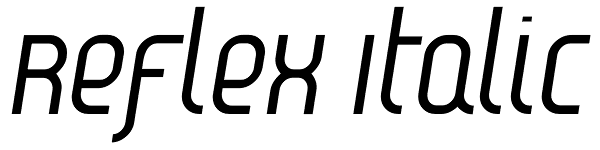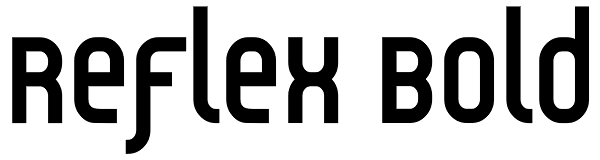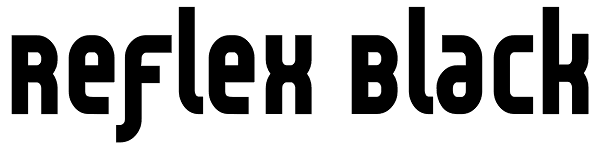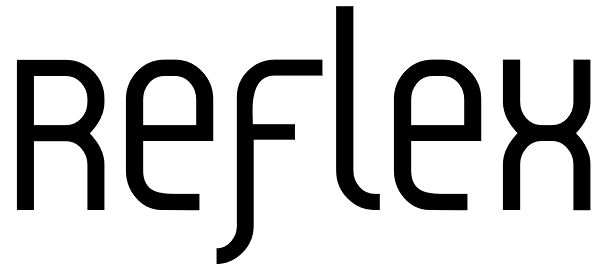
Reflex
Reflex was designed as an alternative to many overused types found on the packaging of pop culture products. Taking its inspiration from Bauhaus design roots, even in its heavy weights it maintains a soft aesthetic that can transparently convey a...